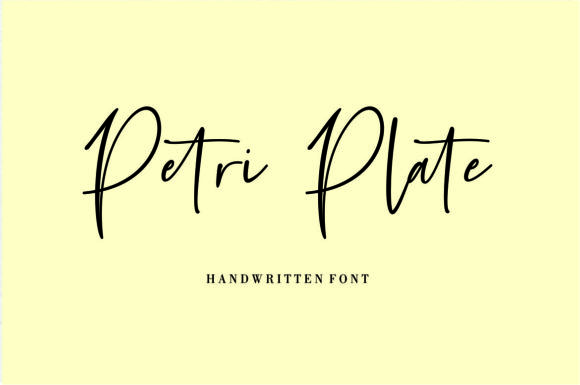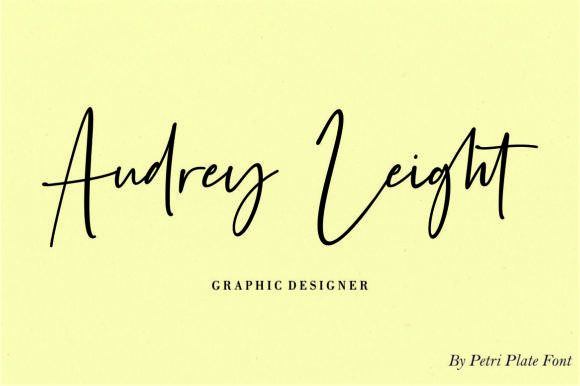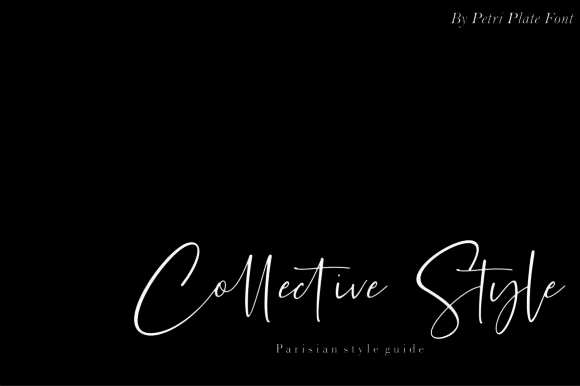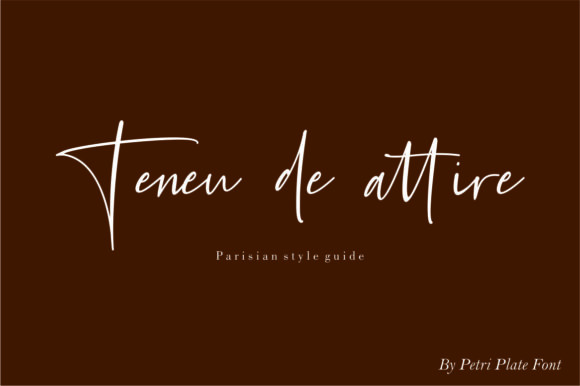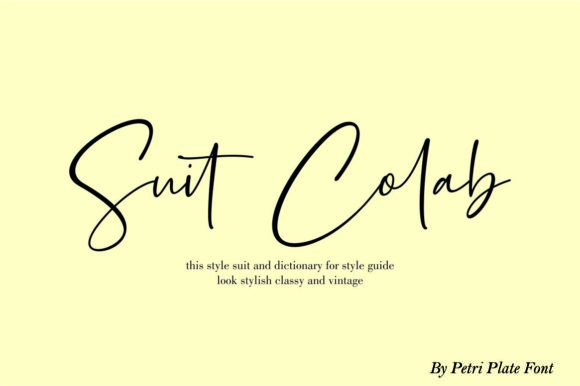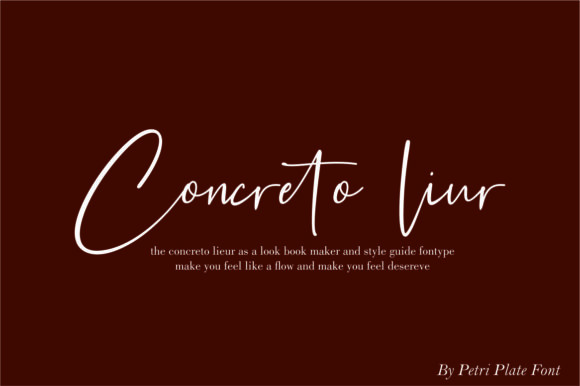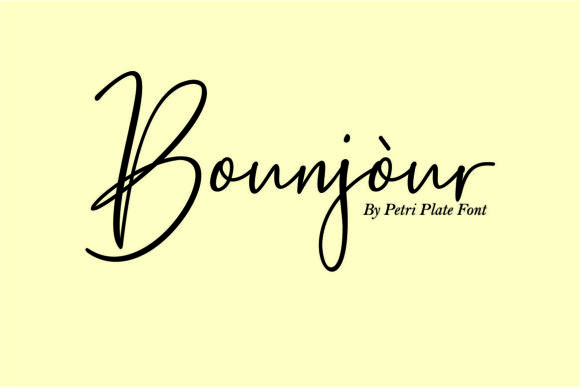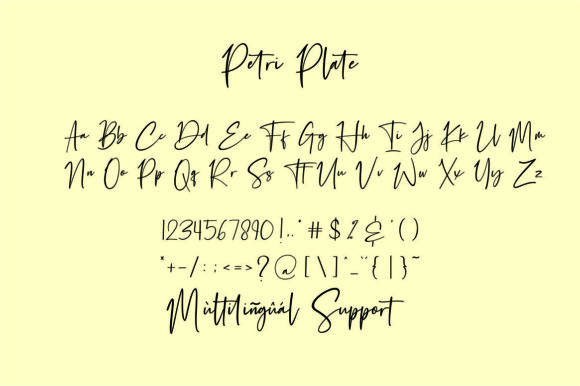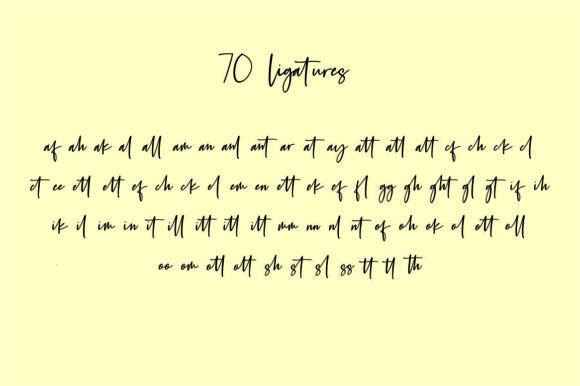
Petri Plate Font
About Petri Plate Font
Petri Plate is a beautiful, light and elegant handwritten font with lots of personality! It will add a personal touch to any creative project.